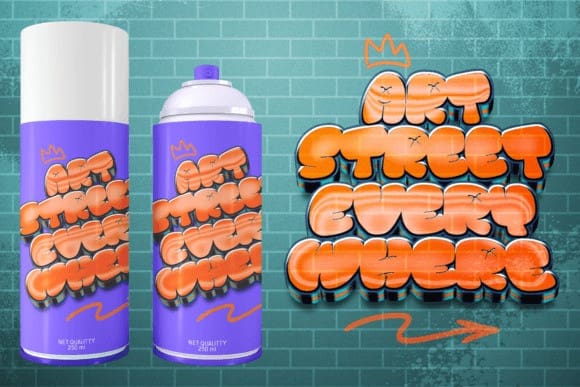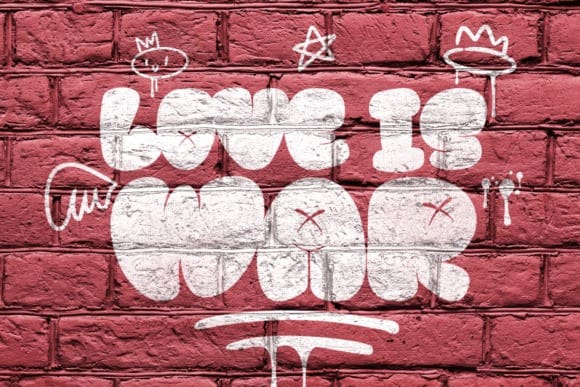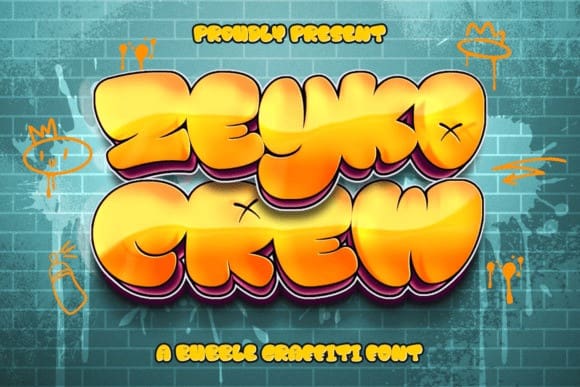
Zeyko Crew Font
Zeyko Crew Font is a bulky and unique graffiti font that adds a touch of street art to your designs. Its bold and edgy style is perfect for creating eye-catching posters, logos, and anything that requires a bit of attitude. Get creative with this font and add some urban flair to your work!